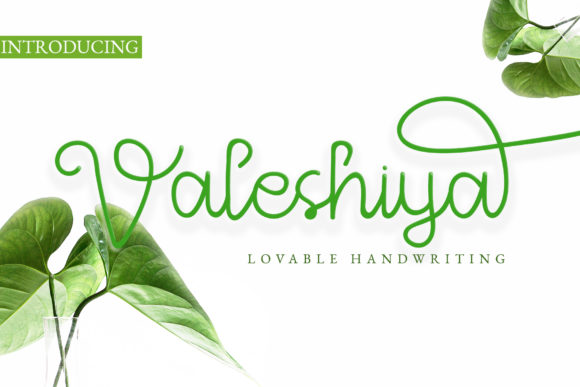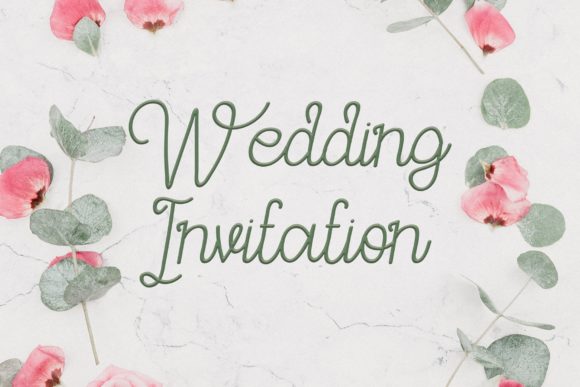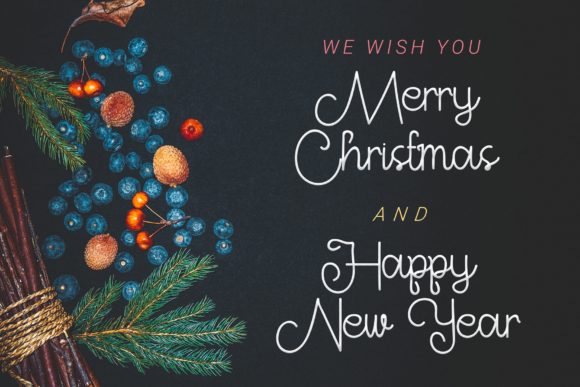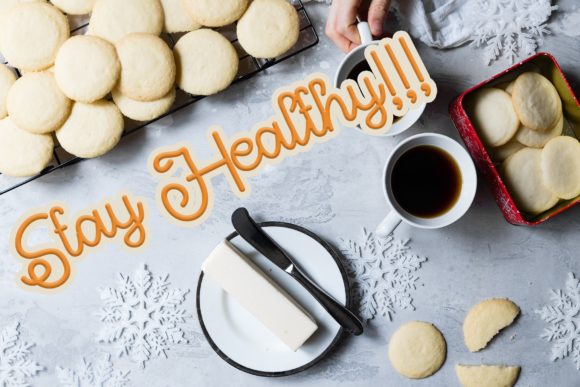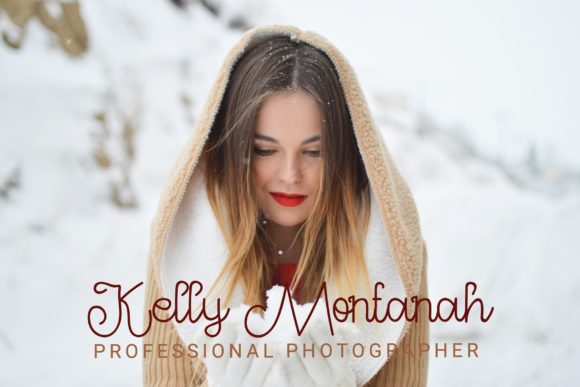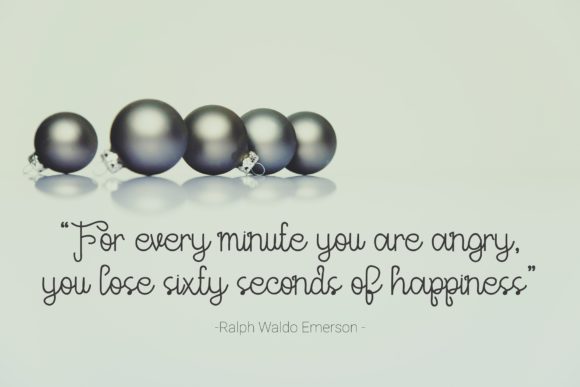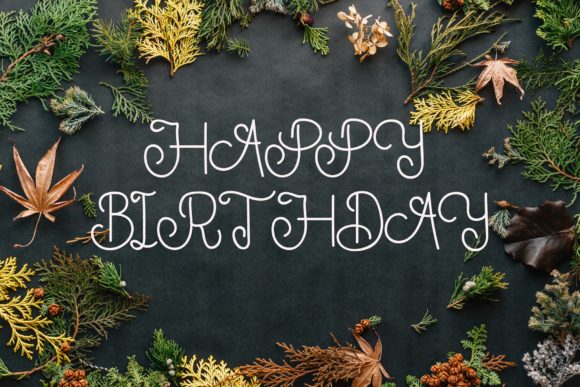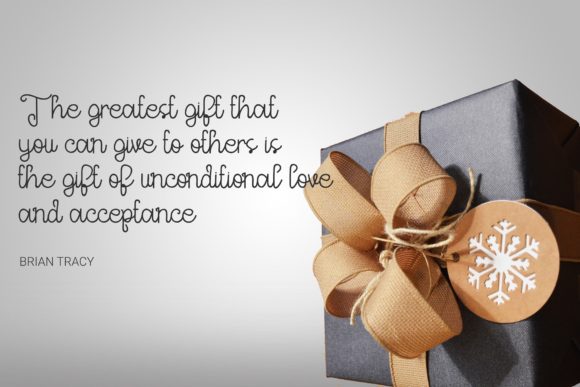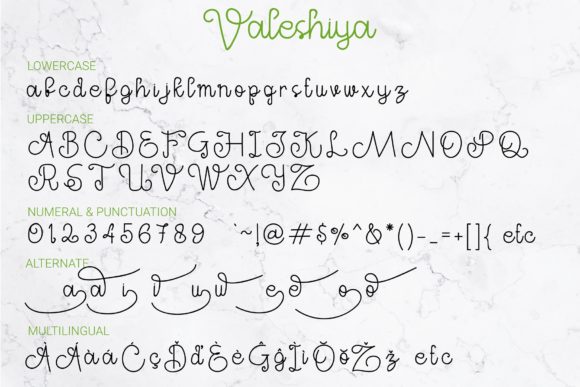
Valeshiya Font
About Valeshiya Font
Valeshiya is an incredibly sweet and playful font. It represents elegance and modernity, and will turn any design idea into a standout!